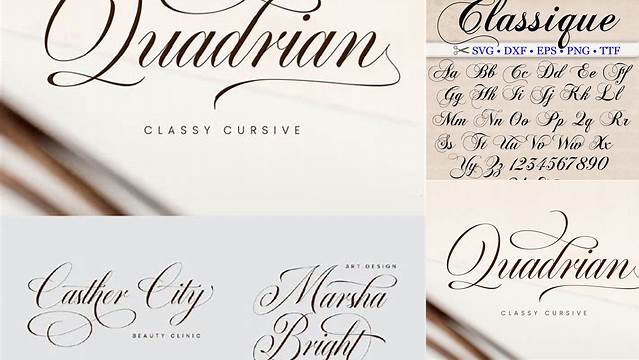
Create Elegant Cursive Fonts Online
Hey everyone! Are you looking to add a touch of class and sophistication to your designs? Well, you're in the right place! Today, we're diving headfirst into the wonderful world of elegant cursive fonts generator! Forget the hassle of downloading and installing software – we're talking about easy-to-use online tools that can transform your text into beautiful, flowing scripts. Whether you're a seasoned designer, a small business owner crafting marketing materials, or just someone who loves to play with fonts, you'll find something awesome here. Get ready to explore the ins and outs of creating stunning cursive fonts that will make your projects stand out! We'll cover everything from the best generators to tips and tricks for maximizing their potential. Let's get started and make your text look absolutely gorgeous!
H2: Understanding the Allure of Elegant Cursive Fonts
So, why are elegant cursive fonts so popular, you ask? Well, guys, they bring a certain je ne sais quoi to any project. They whisper sophistication, creativity, and a personal touch that's hard to beat. Think about it: a well-chosen cursive font can elevate a simple invitation into a work of art, transform a plain logo into a brand statement, or add a touch of elegance to your website. The appeal is universal! Cursive fonts evoke feelings of tradition, romance, and artistry. They're perfect for everything from wedding invitations and greeting cards to logos and social media graphics. This is because the graceful, flowing strokes of a cursive font immediately draw the eye and create a sense of visual harmony. Elegant cursive fonts often remind us of handwritten notes, adding a personal and human element to digital content. They suggest a level of care and attention that is instantly captivating. The range of styles is vast, from delicate scripts to bold, calligraphic designs. Choosing the right one can significantly impact the overall aesthetic of your project. Consider how the font will pair with other elements, like colors, images, and layout. A well-chosen font can amplify your message and create a cohesive and compelling design. Furthermore, the popularity of elegant cursive fonts is driven by their ability to convey specific emotions and messages. A classic cursive font can represent a sense of tradition and formality, which is ideal for professional documents and formal announcements. In contrast, a more playful and whimsical cursive font can be used to project creativity and joy, making it a perfect choice for creative projects and informal communications. The versatility of cursive fonts also contributes to their popularity. They can be adapted to a wide range of design projects, from print to digital. This adaptability allows designers and users to express their ideas with clarity and elegance across different media, further cementing the status of elegant cursive fonts as a fundamental design tool. With such flexibility and emotional power, it’s easy to see why these fonts are so in demand!
H2: The Best Online Elegant Cursive Fonts Generator Tools
Okay, let's get down to business and explore some of the top elegant cursive fonts generator tools available online. There are tons of options out there, so I'll help you narrow it down to the very best. One of the most user-friendly options is Font Generator. This tool allows you to quickly convert any text into a cursive style with a simple copy-and-paste operation. It offers various font styles, and it's super intuitive, making it perfect for beginners. Another great choice is Cool Fancy Text Generator. This generator offers a vast selection of fancy text styles, including many beautiful cursive options. It’s really easy to customize your text and see how it looks in real-time, making it a perfect fit for all sorts of designs. Plus, the generator supports a wide range of special characters, allowing you to create unique and eye-catching text. For a more comprehensive approach, consider using Canva. Canva is a complete design platform, but it includes a fantastic text tool that allows you to create custom text designs. It offers a variety of fonts, including plenty of elegant cursive options. While it’s technically not a dedicated generator, its flexibility and design capabilities make it an excellent resource for more elaborate projects. It is easy to add your text and experiment with different fonts and styles, making your text truly yours. For a simpler, no-frills option, you can try a tool like LingoJam. This tool is easy to use, and offers a great selection of cursive styles to create that perfect look you are after. This is a tool that helps you to quickly generate text in various cursive styles. It's super easy to use and provides a quick way to add a cursive effect to any text. Remember, the best generator is the one that best suits your needs and preferences. Don't be afraid to experiment with different tools until you find the one that fits your style!
H2: Step-by-Step Guide: Creating Your Elegant Cursive Font
Alright, let’s get our hands dirty and walk through the process of creating your own elegant cursive fonts! Don't worry, guys, it's easier than you might think. We will go through how to generate awesome looking fonts. First, choose your tool. As mentioned earlier, there are many great options. Let's say you decide to use one of the online generators we mentioned earlier. Go to the site and find the text input field. Next, type in the text you want to convert. You can include anything from your name and the title of your project to entire sentences. The best tools allow you to preview the font in real time. Then, explore different font styles. Most generators will give you options. Experiment with different cursive fonts until you find one that you love. Consider factors like the font's weight, slant, and overall design. If the tool allows, tweak the font's settings to customize it further. Some generators enable you to adjust the letter spacing, size, or color. These small adjustments can have a massive impact on the final result. Preview your custom cursive font in various settings. See how it looks against different backgrounds or combined with other design elements. Finally, copy and use your font. Once you are happy with how your elegant cursive font looks, copy the generated text and paste it into your design project. You can use it in social media posts, logos, invitations, and more. The process, however, varies slightly depending on the tools that you are using. Some tools may also allow you to download the font file. This way, you can install it on your computer and use it in any program that supports font installation. It is important to save your generated text and keep it handy for future projects.
H2: Tips and Tricks for Optimizing Your Cursive Fonts
Let's dive into some pro tips and tricks to make your elegant cursive fonts look absolutely fantastic! First off, understand the context. Consider where you'll be using your font. Is it for a website header, a greeting card, or a logo? The context will impact the best font and how to use it. Next, choose the right font. Not all cursive fonts are created equal. Some are delicate and perfect for romantic designs, while others are bold and better suited for headlines. Choose a font that matches your project's tone. Don’t overwhelm your design with too much cursive. Remember that these fonts can sometimes be harder to read, so use them sparingly. Consider using cursive for headings and titles to add emphasis, but use a simpler font for the body text. Another thing is to adjust letter spacing. Sometimes, cursive fonts can feel cramped or too spread out. Most generators allow you to fine-tune the letter spacing. Adjust this until the text feels balanced and easy on the eyes. Think about combining cursive with other fonts. Pairing a cursive font with a clean, sans-serif font can create a great balance of elegance and readability. Lastly, always test your design. Preview the final result in various sizes and on different devices to ensure your text looks great everywhere. Proofread everything! Because your font is more difficult to read, it's really important to check for any typos and make sure it is easily read. The best elegant cursive fonts can be a game-changer in your design, so keep these tips in mind, and your projects will shine!
H2: Pairing Cursive Fonts with Other Design Elements
Let's talk about how to combine your elegant cursive fonts with other design elements! Guys, this is where your creativity can truly shine. The right combination of fonts, colors, and imagery can make your design pop! First up, font pairings. The secret to successful pairing is contrast and balance. A classic approach is to pair your cursive font with a clean, sans-serif font for body text. This contrasts the elegance of the cursive with the simplicity of the sans-serif, making the text easily readable while maintaining a touch of sophistication. In terms of color, think about the overall mood you want to create. Soft, pastel colors pair well with delicate cursive fonts for a romantic feel. Bold colors can make a statement, but ensure they complement the font. Ensure a perfect mix of images. Consider the content of your image. The image should match the fonts. For example, if your font is romantic, use pictures that evoke that emotion. Keep consistency across your design. Make sure that the font and image are consistent to help your audience understand your message. Maintain consistency in your brand. Use your chosen font combination consistently across all your projects. This builds brand recognition and reinforces your brand identity. Make sure to experiment and iterate. Don't be afraid to try different combinations and see what works best for your project. By experimenting, you might discover unexpected pairings that you love. Ultimately, the goal is to create a harmonious design. By carefully selecting and combining design elements, you can create projects that are both visually appealing and effective.
H2: Choosing the Right Cursive Font for Your Project
Guys, choosing the perfect elegant cursive font is like finding the right outfit for a special occasion. It's all about matching the font to the project's purpose and tone! First, consider the project's context. Is it a wedding invitation, a business logo, or a social media graphic? Each of these projects requires a specific style. Next, know your audience. Who are you trying to reach? Younger audiences might respond well to playful or modern fonts. Older audiences may prefer classic or traditional fonts. Think about readability. Ensure that the font is easy to read, especially at smaller sizes. If your font has complex flourishes, make sure they don’t make the text difficult to decipher. Focus on the font's personality. Some fonts are elegant and delicate, while others are bold and dramatic. Choose a font that aligns with the overall mood or message. Consider the font's weight and style. A light font will appear more delicate, while a bold font will appear more eye-catching. Select a font that is easy to use and customize. Look for fonts that can be customized to fit different design needs. Also, consider the license. Ensure that the font you're using is licensed for the project. Some fonts are free for personal use but require a license for commercial purposes. Think about the font's availability and accessibility. Make sure that the font is easy to access, so that you do not waste time searching for it. By carefully assessing these factors, you can choose a cursive font that is perfectly suited to your project. This attention to detail will improve your project, helping you create designs that captivate and inspire.
H2: Customizing Your Elegant Cursive Font for a Unique Look
Alright, let's talk about making your elegant cursive font truly unique! Guys, we want to make sure your font stands out! Start with the basics. First, choose a font that aligns with your overall vision for your design. Most generators offer basic customization options, such as adjusting the size, color, and spacing. These options are a great way to make the text fit perfectly. Adjust letter spacing. Pay close attention to the space between letters. Tighten the spacing to make the text appear more compact, or spread it out to create a more airy effect. Some fonts may allow you to adjust the kerning, which changes the spacing between individual letter pairs for a more custom look. Play with text effects. Experiment with effects like drop shadows, outlines, and gradients to add depth and visual interest. Be careful, though! Too many effects can make your text look cluttered. Try different color palettes. The color can significantly impact how your font appears. Experiment with color combinations to see what works best. For example, consider the effect of adding a contrasting color to give your font a unique flair. Add a personalized touch. Consider adding your signature or unique details to your font. Finally, preview your results. Constantly review how your font looks with other design elements. The best way to get a unique design is to experiment and iterate. It’s all about experimenting with different tools and methods until you achieve a result that looks incredible.
H2: The Psychology Behind Cursive Fonts: Emotions and Associations
Let's dive into the psychology behind elegant cursive fonts and what makes them so captivating! Guys, the fonts we use have a deeper emotional impact than you might think. Firstly, cursive fonts often evoke feelings of elegance and sophistication. The flowing, connected strokes suggest a sense of artistry and refinement. Cursive fonts can remind us of handwritten notes. Handwritten notes evoke emotions such as nostalgia, sentimentality, and a personal touch that can create a sense of closeness. Cursive fonts are also associated with tradition and history. The use of cursive fonts often calls to mind vintage designs, which can be ideal for conveying messages of heritage and established quality. Different cursive fonts may elicit different responses. Some fonts are modern and friendly, while others are formal. Be mindful of the different personality types. Using cursive fonts can also influence the perceived credibility of a message or brand. A design with a clear and legible cursive font can enhance the overall appeal. For instance, using it on invitations may create a sense of high quality. The colors, too, impact how cursive fonts are perceived. Soft, pastel colors can suggest a romantic and feminine aesthetic. It’s important to use this knowledge to your advantage when you create your designs. Always consider your audience! The emotions and associations connected with cursive fonts are powerful tools for designers. By understanding these nuances, you can use cursive fonts to craft messages. Cursive fonts are more than just text; they're vehicles of emotion and memory.
H2: Finding Inspiration: Where to Discover New Cursive Fonts
So, where can you find inspiration for your elegant cursive fonts, guys? There are tons of places to look! Online font marketplaces, such as Creative Market or MyFonts, are great places to start. They offer a wide range of fonts. Design blogs and websites provide a constant stream of inspiration. Always visit websites like Behance and Dribbble. Look at other designers' work. Make use of social media. Get involved in design communities. Stay curious! The world is filled with inspiration. Get out there and find it. Never stop learning! The more you learn, the better you will become. Keep searching for the right font. Inspiration is all around us. Never give up on your dreams! The most important thing is to have fun!